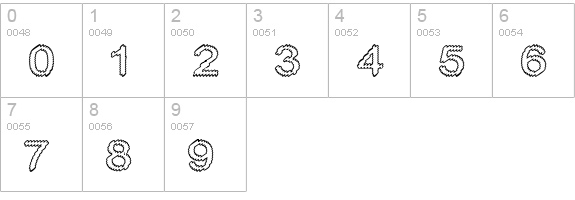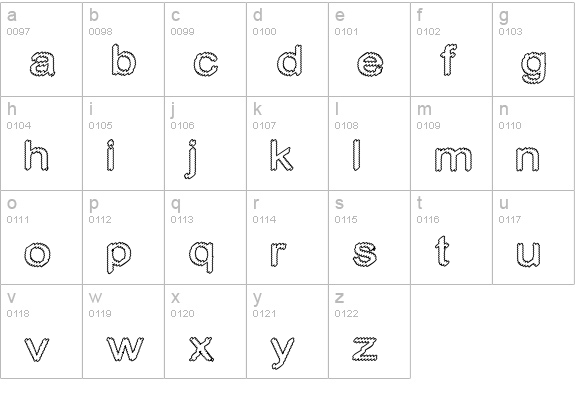
Cylonic Empty Font Details
Introducing Cylonic Empty font, a modern and sleek typeface that exudes sophistication and elegance. This unique font features clean lines and a contemporary design that is perfect for a variety of creative projects. The Cylonic Empty font is versatile and can be used for anything from logos to branding to website design. What sets Cylonic Empty font apart is its minimalist yet striking appearance, making it stand out in any application. The font's sleek and stylish look will elevate your designs and give them a professional edge. Whether you are working on a branding project, creating marketing materials, or designing a website, Cylonic Empty font is sure to make a statement. Best of all, Cylonic Empty font is available for free download at FontsMarket.com. This means that you can easily access this stunning font and use it in your projects without any cost. Don't miss out on this fantastic opportunity to enhance your designs with the Cylonic Empty font. Download it today and take your creations to the next level.